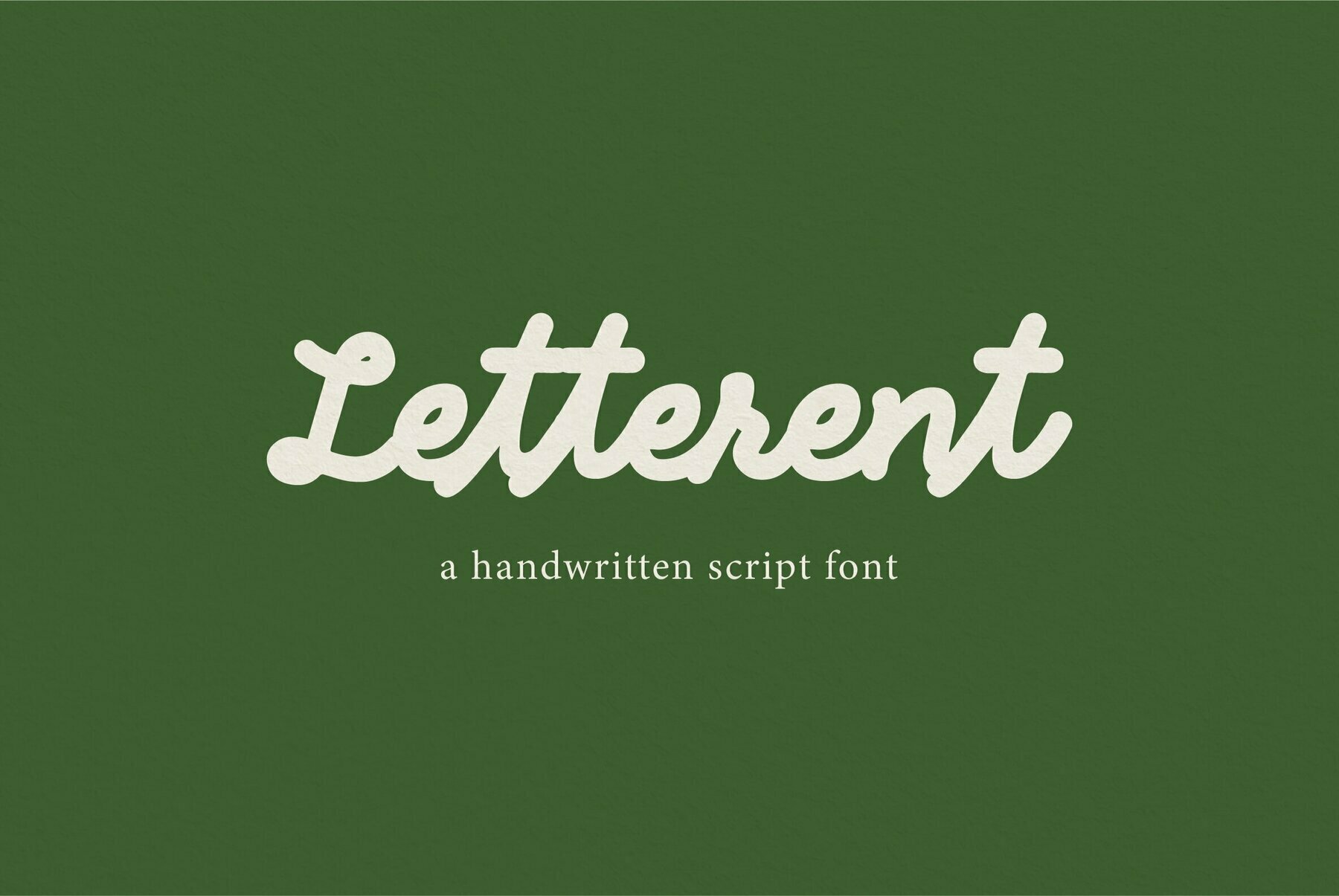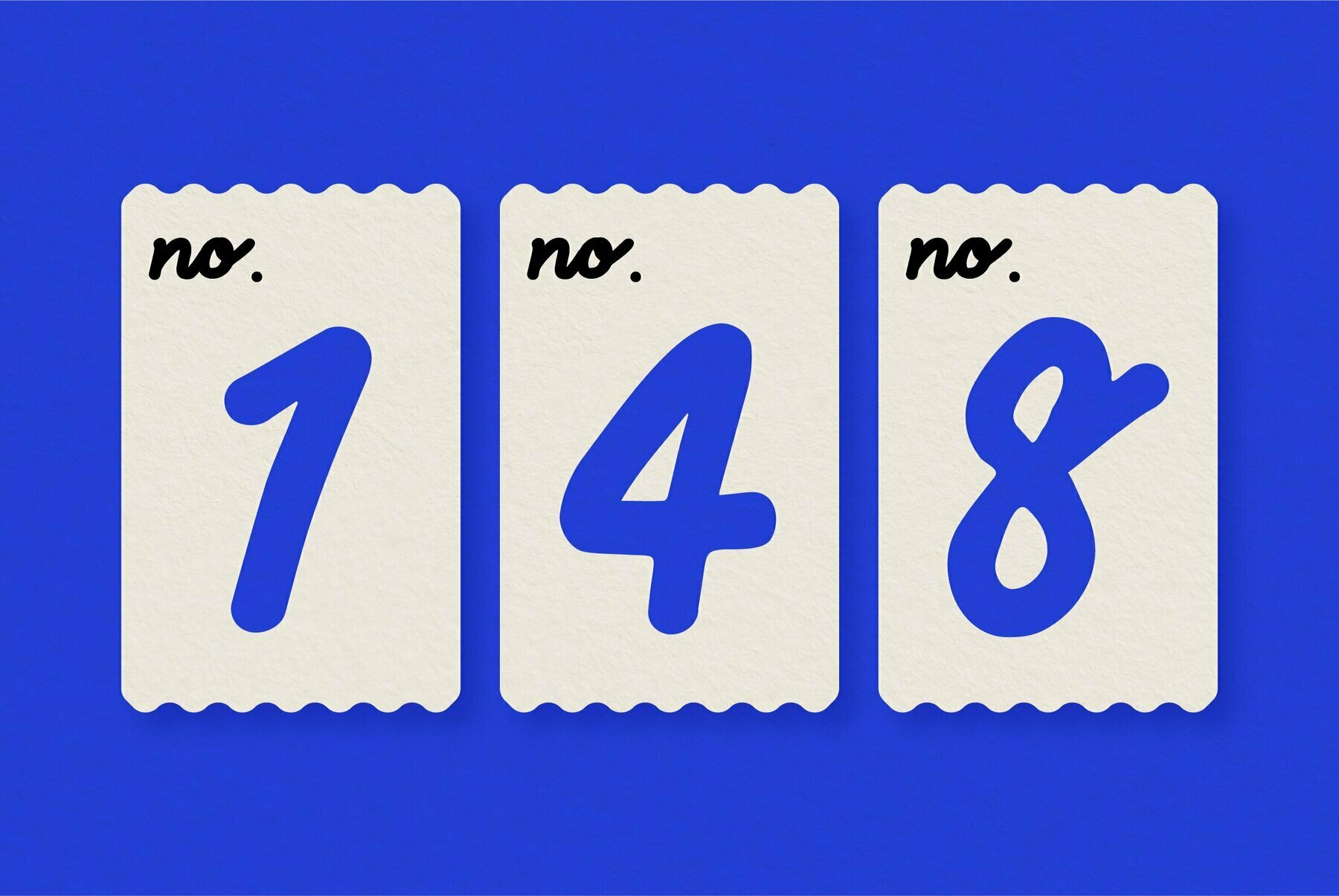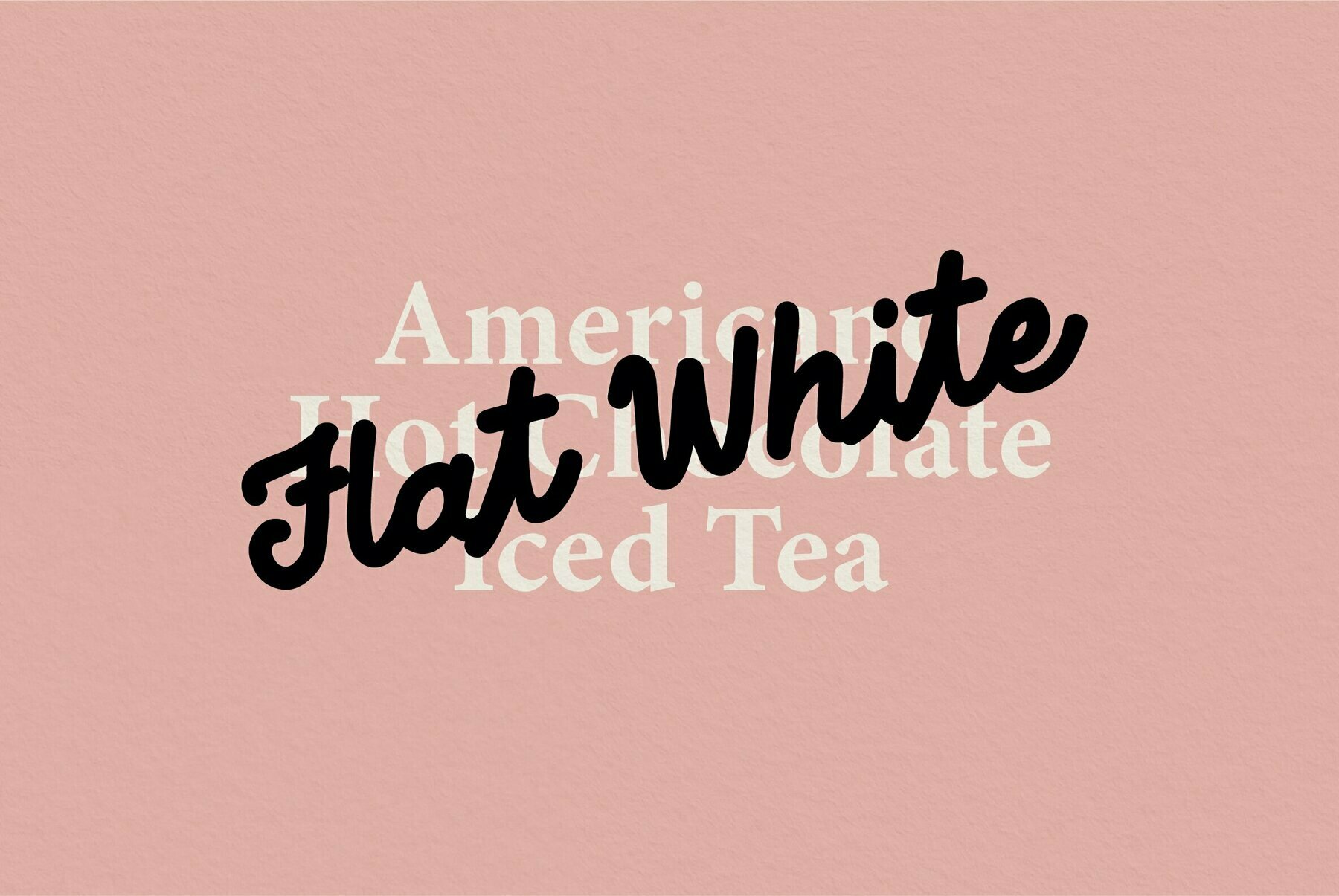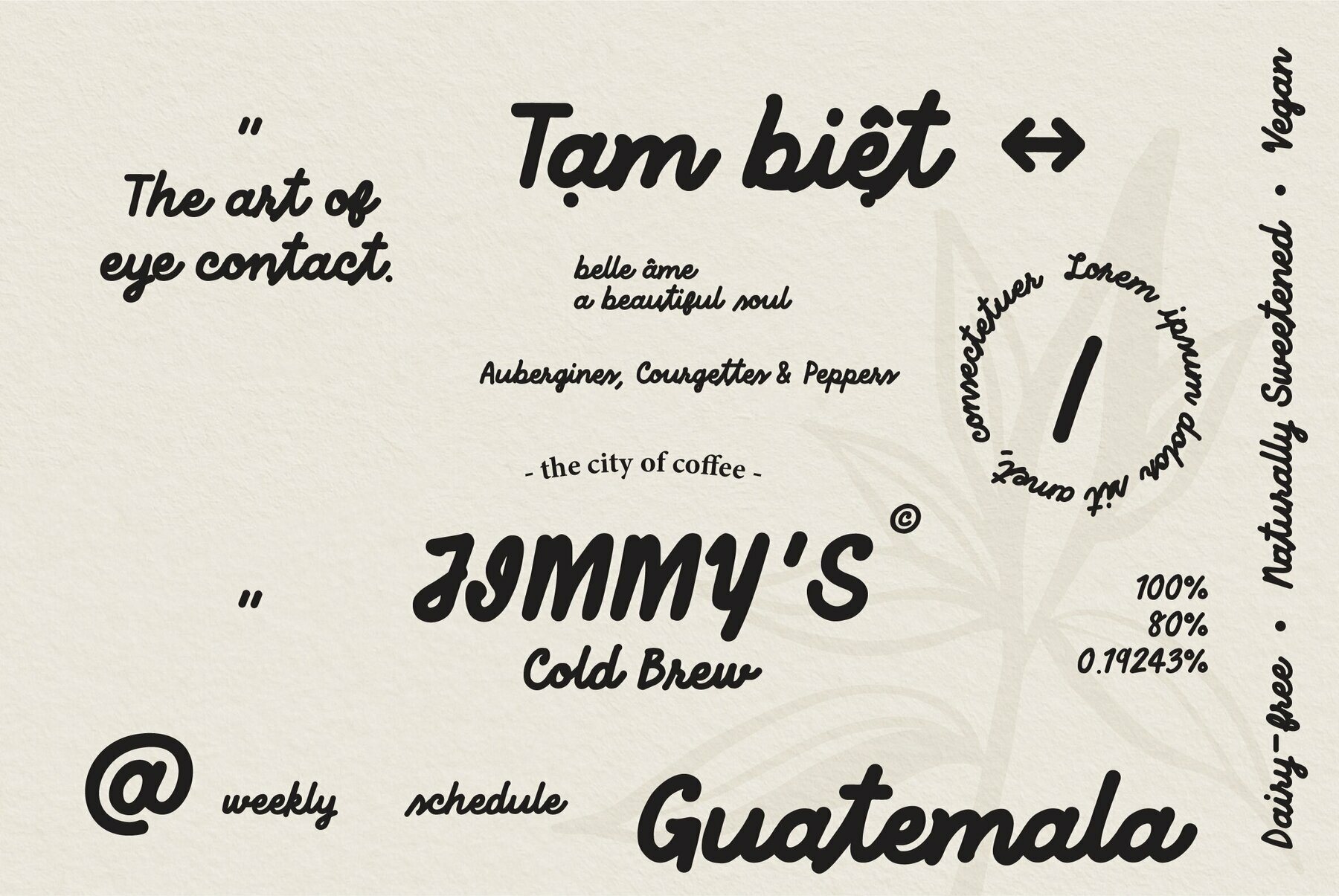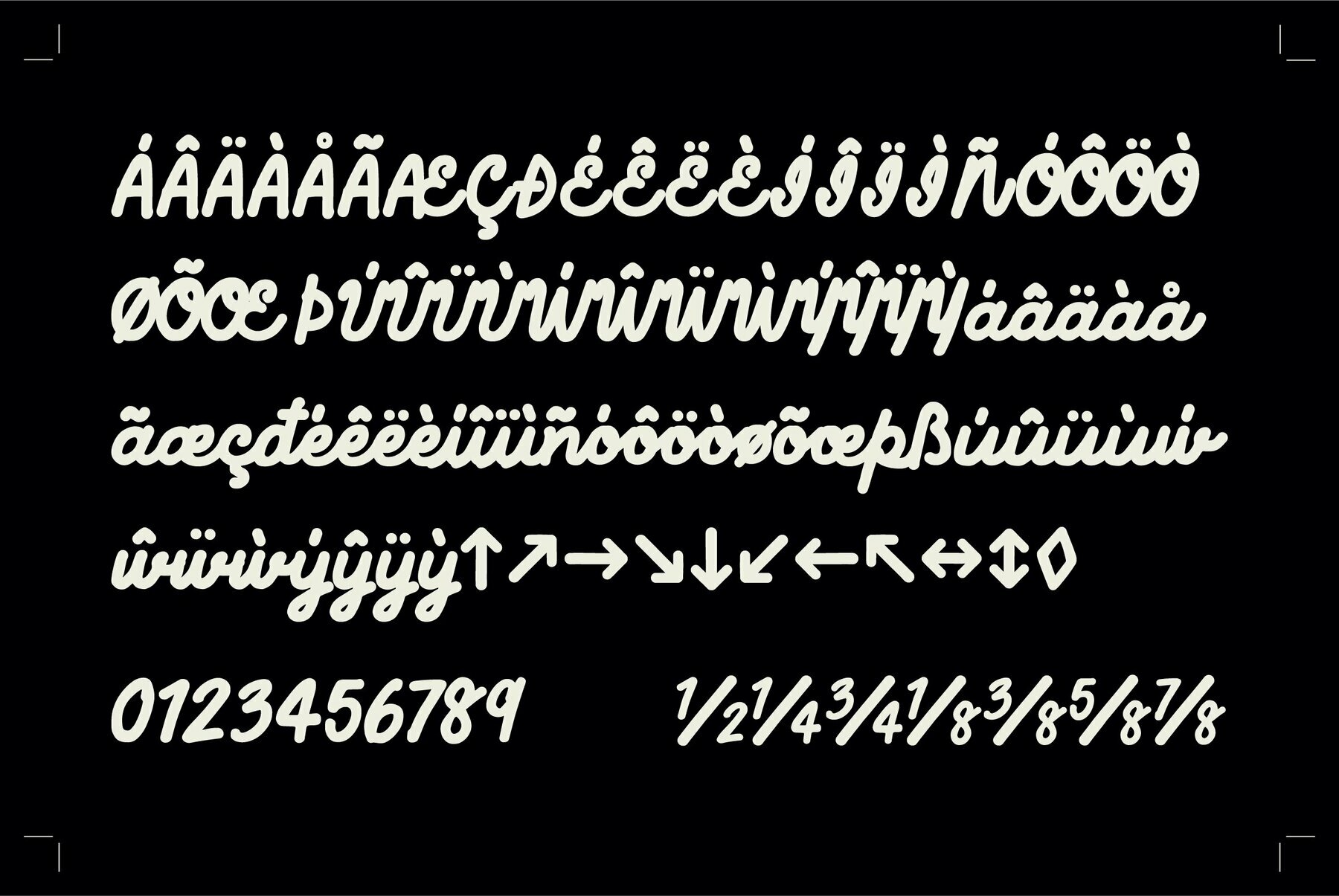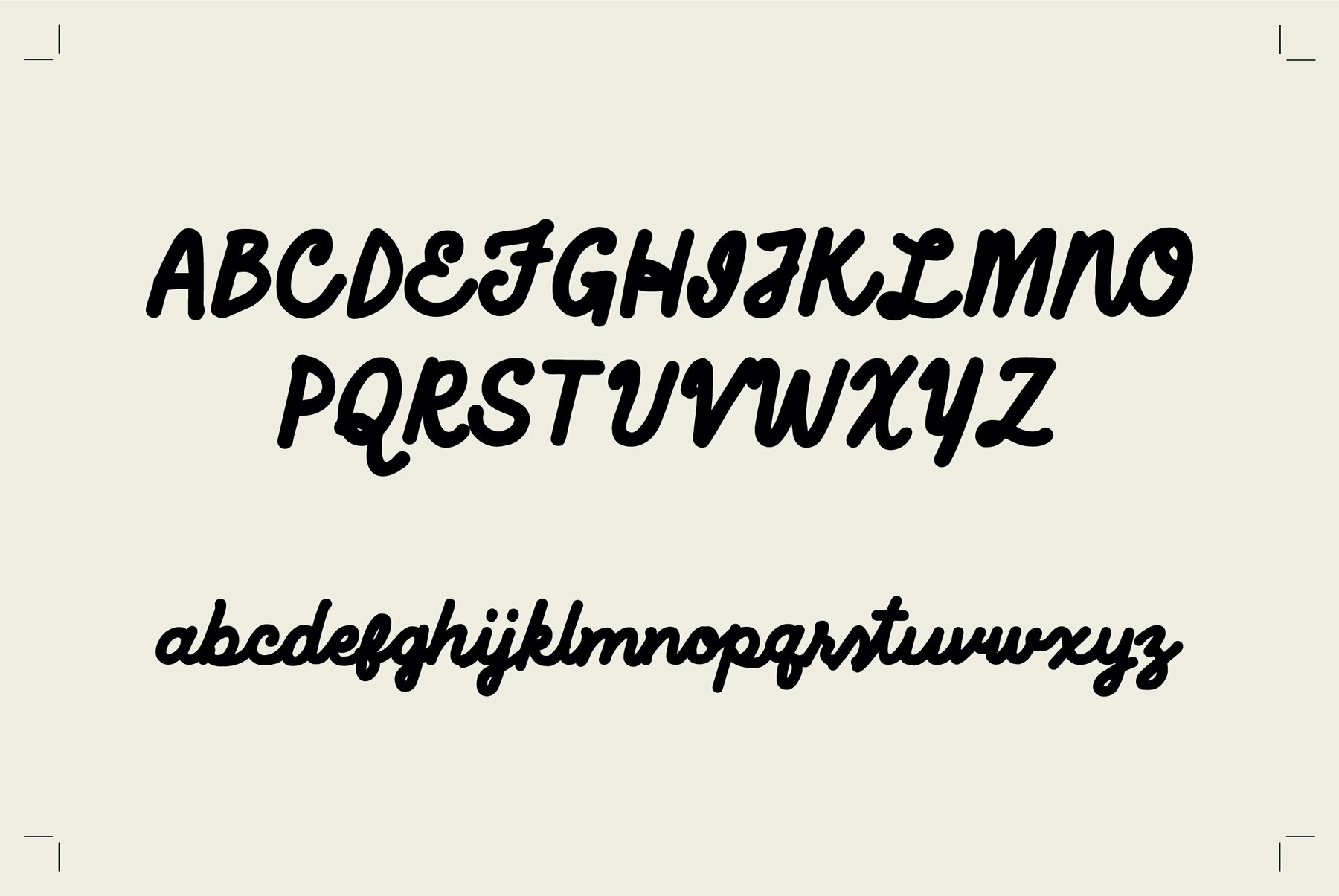
Letterent Script the new handwritten script font designed by Prangtip F. Minimal and clean style font look. It can be used for various purposes such as branding projects, invitation design, packaging, and it works perfectly with any other san serif or serif fonts.
Available in OTF format. including multilingual support for Basic Latin, Western European, Central European, South Eastern European, Vietnamese, Pinyin. Also fraction feature and standard ligature.